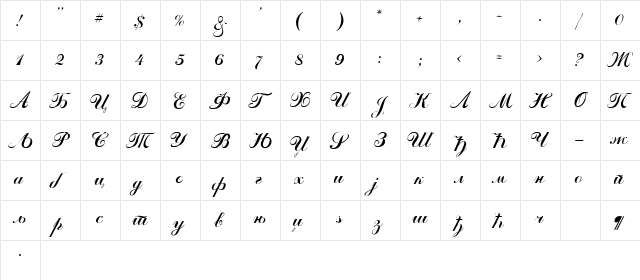
OdessaScript Cirilica Regular Font Preview
OdessaScript Cirilica Regular
OdessaScript Cirilica Regular Font Details
Design Context for OdessaScript Cirilica Typeface
OdessaScript Cirilica brings a calligraphic fluidity to the page — its connecting strokes and expressive curves give it an unmistakably human quality.